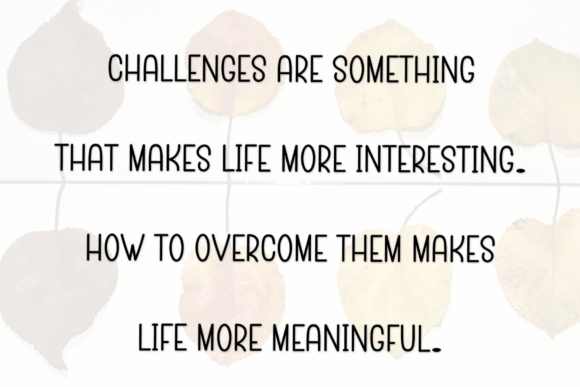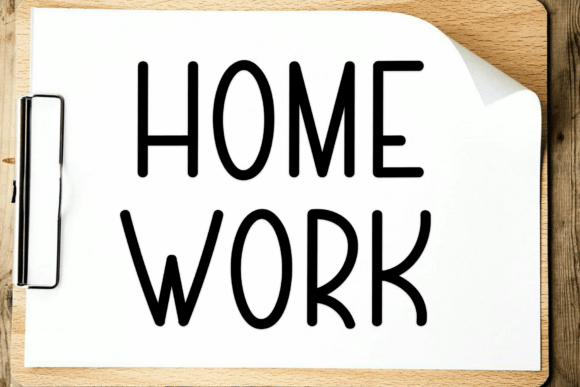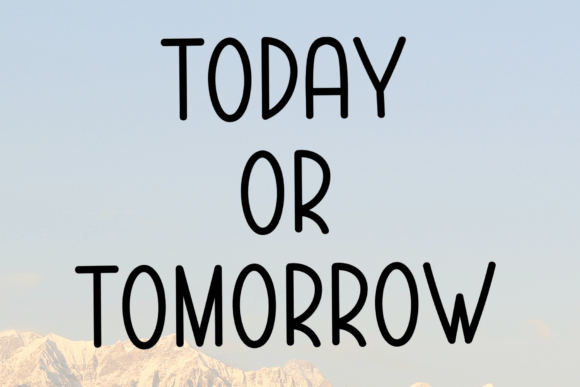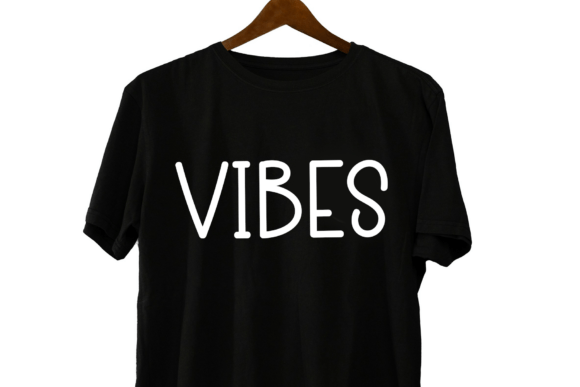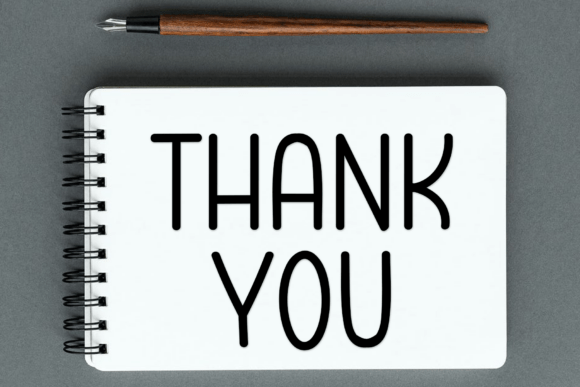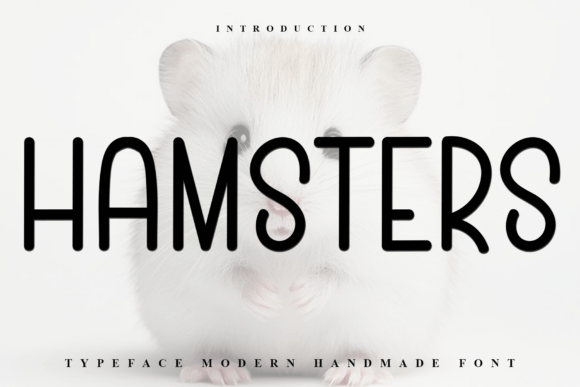
Introducing the Hamsters Font: A Perfect Blend of Clean Geometry and Organic Warmth
In the world of typography, finding the perfect font that combines modernity with a touch of warmth can be a daunting task. However, the Hamsters font has emerged as a game-changer, offering a unique blend of clean geometry and organic warmth that is sure to elevate your design projects. This modern, handmade typeface features tall, slim letterforms with gently rounded terminals, providing a friendly yet professional aesthetic that is perfect for a wide range of applications.
The “Soft-Modern” Vibe of Hamsters Font
The Hamsters typeface captures a “soft-modern” vibe that is incredibly popular in contemporary lifestyle branding and digital content creation. This font is designed to provide a clean and minimalist look that is both visually appealing and highly legible. The soft-modern aesthetic is all about striking a balance between modernity and approachability, and the Hamsters font achieves this perfectly. Its unique design makes it an excellent choice for designers and crafters looking to create modern, yet approachable and friendly designs.
Exceptional Versatility
One of the standout features of the Hamsters font is its exceptional versatility. This font is a go-to choice for social media managers and boutique owners who need a reliable and stylish font for their branding and marketing materials. Whether you’re designing clean, minimalist Instagram quotes, playful nursery wall art, or complex logo designs, the Hamsters font is an excellent choice. Its flexibility and adaptability make it an ideal font for a wide range of applications, from digital content creation to print design.
Pairing Options
The Hamsters font pairs beautifully with thick script fonts or detailed illustrations, providing a legible and balanced foundation for your work. This font is designed to complement a variety of design elements, making it easy to incorporate into your existing design workflow. For example, you can use the Hamsters font as a base font and pair it with a bold script font for added visual interest. Alternatively, you can use it as a secondary font to add a touch of elegance and sophistication to your designs.
Real-World Applications
So, what can you create with the Hamsters font? The possibilities are endless! Here are a few ideas to get you started:
• Clean and minimalist Instagram quotes that resonate with modern audiences
• Playful nursery wall art that adds a touch of whimsy and fun
• Complex logo designs that require a professional and elegant font
• Menus for trendy vegan cafes or restaurants that want to convey a modern, eco-friendly vibe
• Presentations for tech startups that want to feel more human and approachable
Why Choose the Hamsters Font?
So, why should you choose the Hamsters font for your design projects? Here are just a few reasons:
• Unique blend of clean geometry and organic warmth
• Exceptional versatility and adaptability
• Perfect for modern lifestyle branding and digital content creation
• Pairs beautifully with thick script fonts or detailed illustrations
• Provides a polished, hand-touched finish that resonates with modern audiences
In conclusion, the Hamsters font is an excellent choice for designers and crafters looking for a modern, versatile, and elegant font that combines clean geometry with organic warmth. Its unique design makes it perfect for a wide range of applications, from digital content creation to print design. With its exceptional versatility and pairing options, the Hamsters font is sure to become a staple in your design workflow.